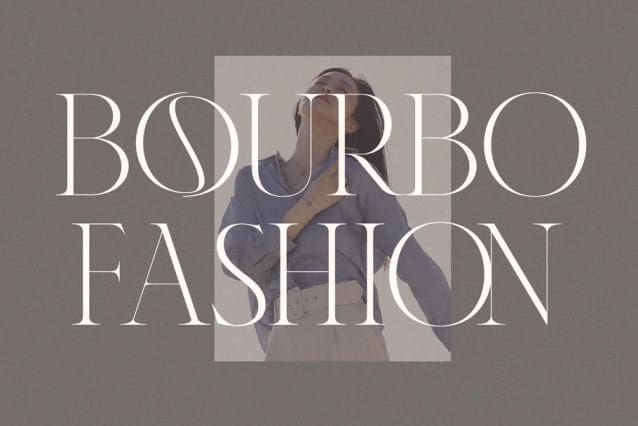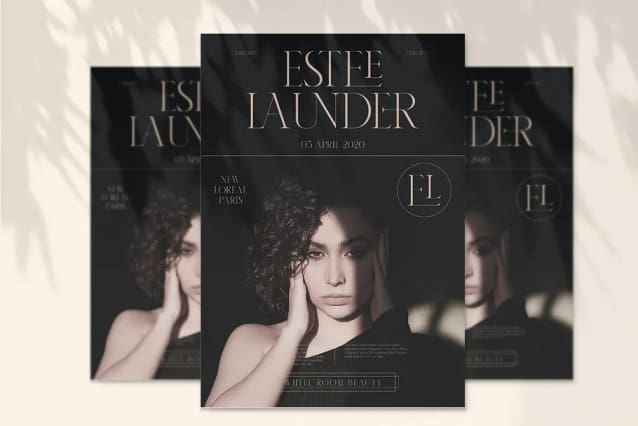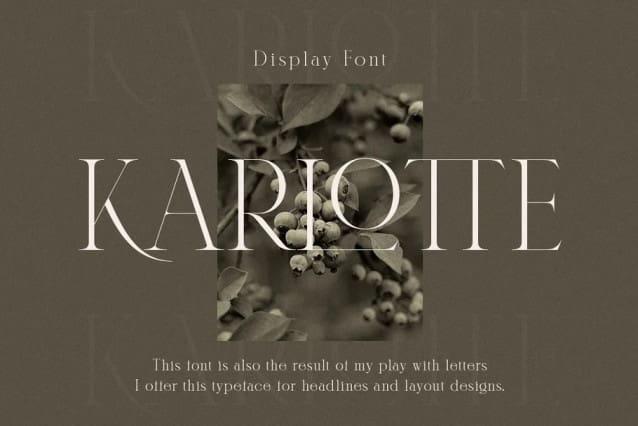
Karlotte Font
Karlotte Font is an elegant Modern Serif Font giving a romantic feel to every curve having a smooth edge. This typeface has been carefully crafted to ensure premium quality and a luxurious feel. With 46 Ligatures included, it is a great help in creating the title of any of your projects: such as fashion, magazines, logos, branding, photography, invitations, wedding invitations, quotes, blog headers, posters, advertisements, postcards, books, websites, etc.